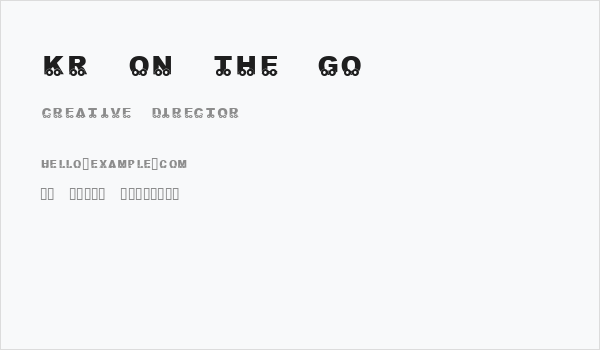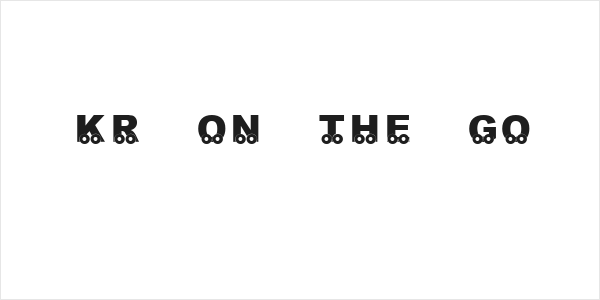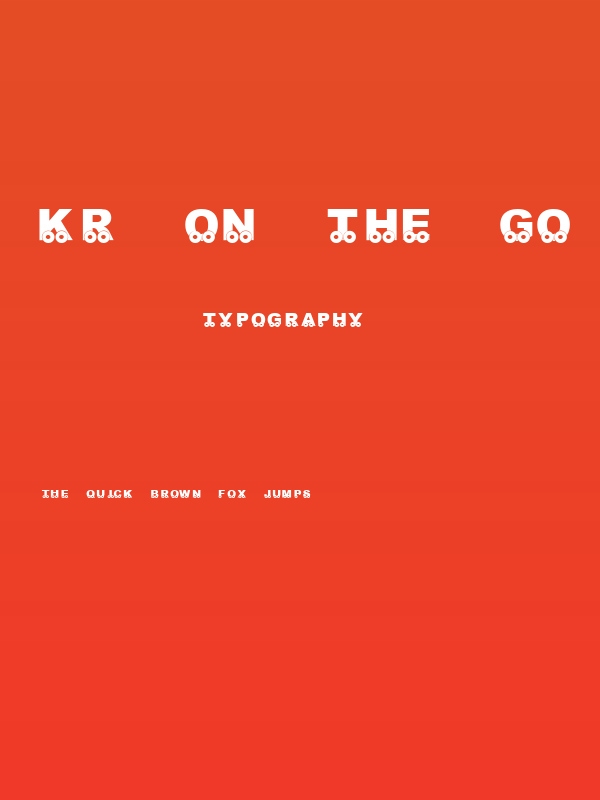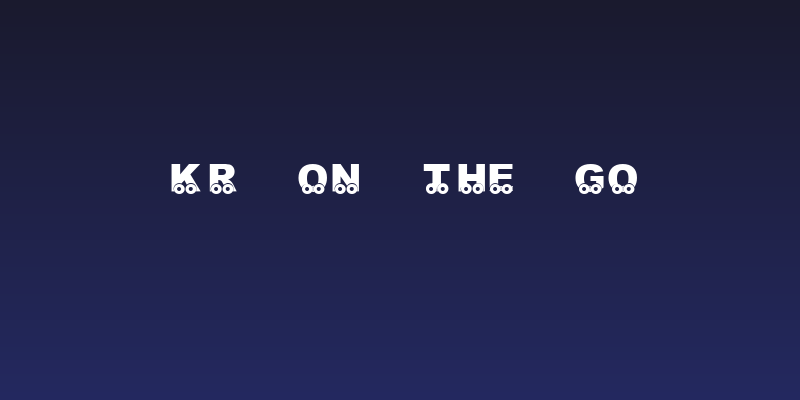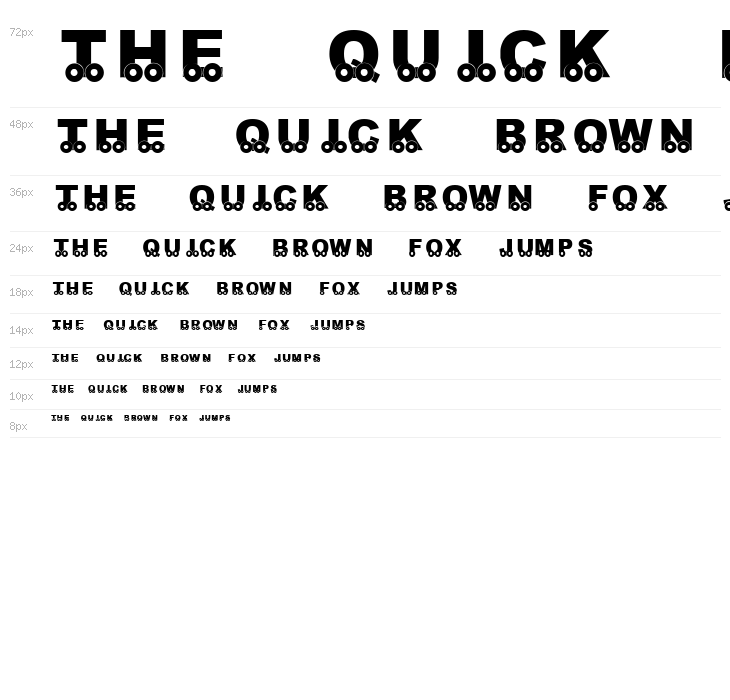
KR On The Go Font
KR On The Go Description
This font features a playful and unique design, incorporating elements that resemble small wheels or gears at the base of each character. The uppercase letters are bold and have a strong presence, while the lowercase letters maintain the same whimsical style. The numbers and special characters are consistent with this theme, making the font ideal for creative and fun projects. Its distinct style makes it stand out, adding a touch of personality and charm to any design.
| Overall Style | Playful, Creative |
| Use Case | Logos, Posters, Branding |
| Proposed Projects | Ideal for children's books, toy packaging, playful branding, and creative posters. |